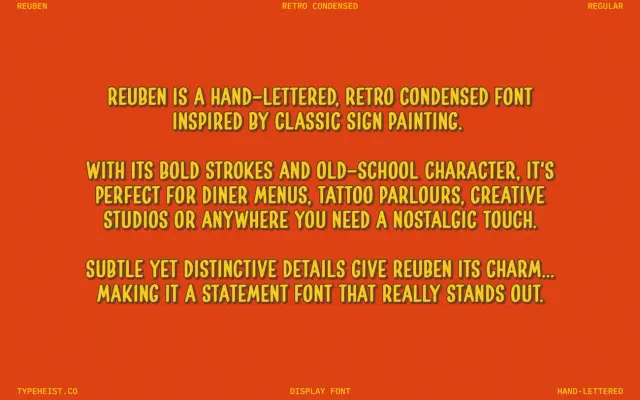
A bold condensed display face drawn from classic sign painting, carrying a retro, hand-lettered character suited to nostalgic or craft-oriented work.
Reuben takes its cues from vintage sign painting, offering bold strokes and a condensed form that suits diner menus, tattoo studios and similar nostalgic contexts. Subtle detailing in the letterforms gives it a degree of personality beyond generic retro revival territory. A single-weight display font best deployed at large sizes where its hand-crafted qualities read clearly.
A bold, condensed display face drawn from hand-lettering and sign painting traditions, placing it firmly in the display category with a vernacular, retro subcategory.